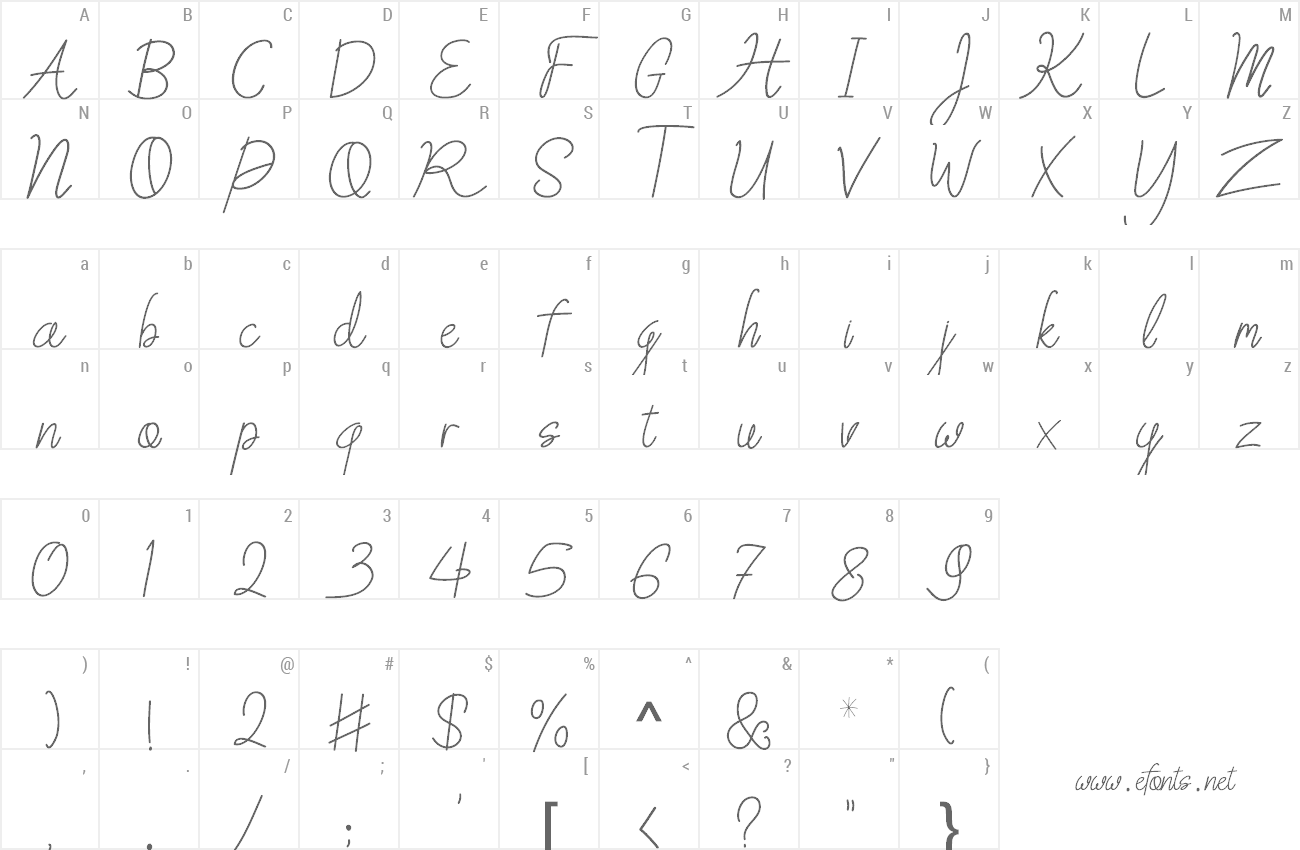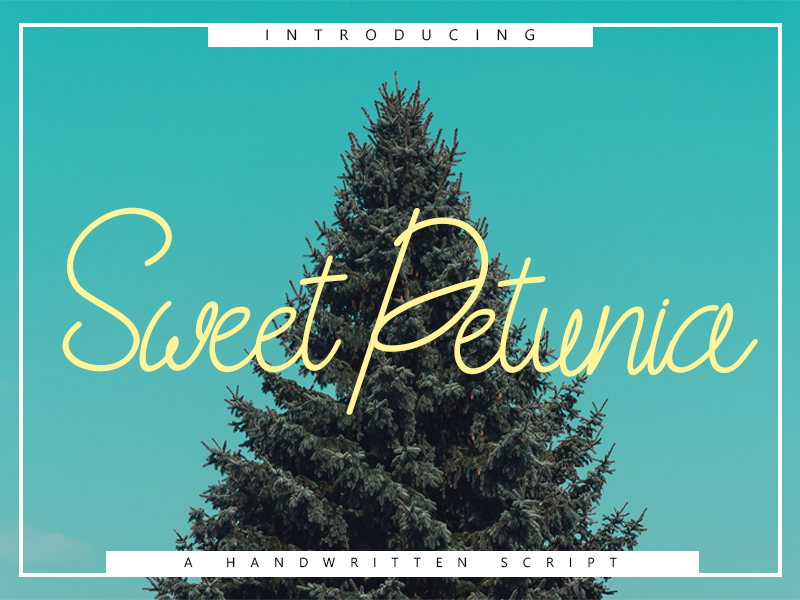
Preview and download Sweet Petunia Font. Created by Rifky Naufaldy in Script Handwritten styles with Free for personal use license.
Introducing Sweet Petunia, its a casual styled handcrafted script font that could be applied to any kind of design you desired. Sweet Petunia is really great font for logo, blog/web headline, clothing, invitation, poster, cafe/resto sign, and many others. ____________________________________________________ Whats Include ? Sweet Petunia .otf ____________________________________________________ This font is for personal use only, for other use or license please purchase at : https://creativemarket.com/rifkynaufaldy/3190737-Sweet-Petunia-Handwirtten-Script For 1$ price of this font, purchase at : https://thehungryjpeg.com/product/3507748-sweet-petunia-handwritten-script/ If you willing to donate me, you can donate me to my Paypal : paypal.me/rifkynaufaldy All earnings will help me improve me & bring you more free high quality products! _____________________________________________________ Thanks for purchasing, i really cant wait to see what you created with this font. Dont hesitate to tag me on instagram @rifkynaufaldy. If you have something to ask about, or need support, dont hesitate to email me at rifkynaufaldy19@gmail.com More... |